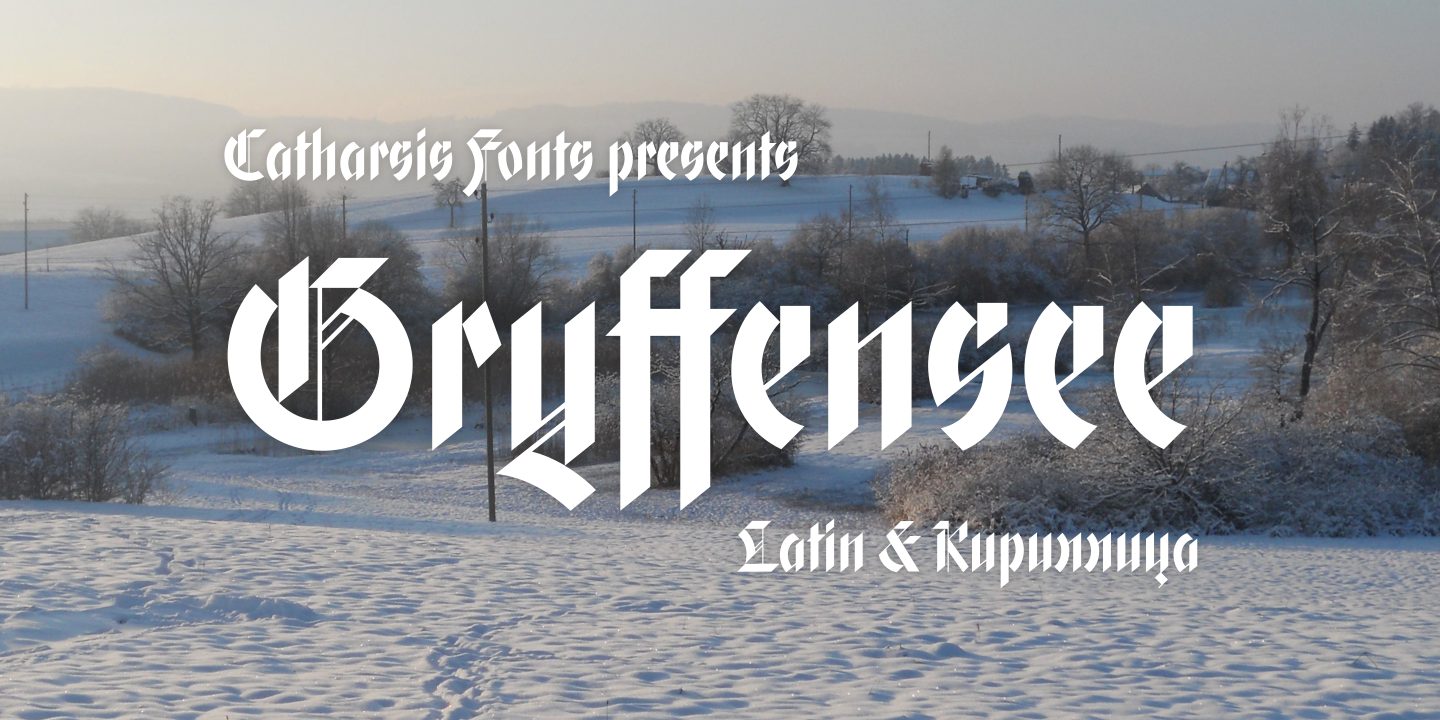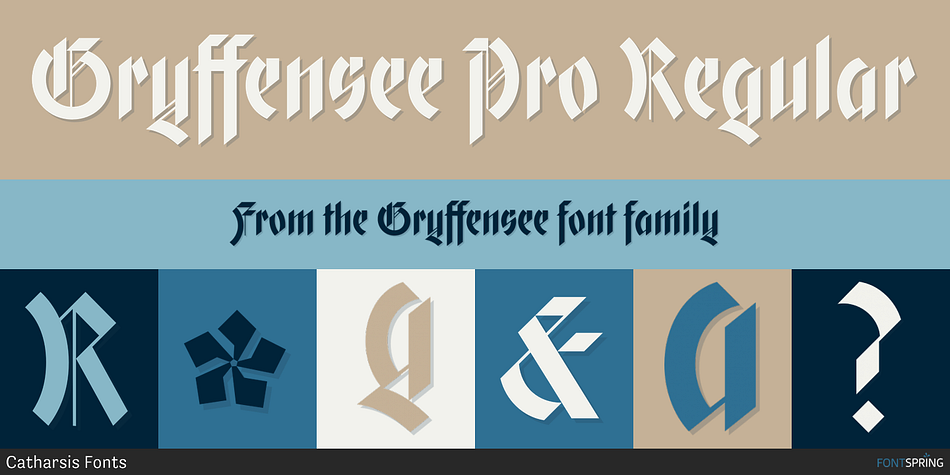
Gryffensee Pro Regular
Gryffensee is a blackletter font family. This typeface has four styles and was published by Catharsis Fonts.
Gryffensee is designed to be the Futura of blackletter, combining the time-honored gravity and relentlessness of the Gothic script with the clean, contemporary freshness of the geometric sans.
Gryffensee is designed to be the Futura of blackletter, combining the time-honored gravity and relentlessness of the Gothic script with the clean, contemporary freshness of the geometric sans. Built from a tightly controlled inventory of lines, arcs, sharp cuts, and OpenType features, Gryffensee was born and raised in the digital age, yet retains the powerful charisma and human warmth of its mediaeval blackletter ancestors. As a result, it excels in a wide range of display settings, logotypes, and short text. Unlike most conventional blackletters, it even handles all-caps usage with grace, and includes an extensive Cyrillic character set (in the Pro version).
Apart from a generous range of automatic ligatures and contextual alternates, Gryffensee offers stylistic alternates that allow users to customize its appearance to their tastes. The capital letters |AGHIKZ| come in alternate cuts that trade traditional shapes for increased legibility, while the letter |s| appears in three cuts, each with a unique, distinct flavor. All these options are accessible through OpenType stylistic sets in the main Latin font, Gryffensee Eins. For easy use in applications without OpenType support, we provide two additional Latin fonts (Gryffensee Zwei and Drei) in which these options replace the default cuts. Finally, Gryffensee Pro offers all the functionality of Gryffensee Eins, plus Cyrillic support.
My intention to devise a contemporary geometric blackletter was inspired by four hand-painted letters, |ABCD|, in Sasha Prood’s online portfolio. I later found out that he had, in turn, taken those letters from an existing font, Bastard, by Jonathan Barnbrook. Luckily, by that time my project had taken on a life of its own. Gryffensee is an original design that bears only the most superficial resemblance to Bastard. Gryffensee is a mediaeval spelling of the lake Greifensee near which I grew up. It is pronounced [ˈgriːfənˌseː], or “GRIEF-un-say” in English approximation. This font is dedicated to Simone.